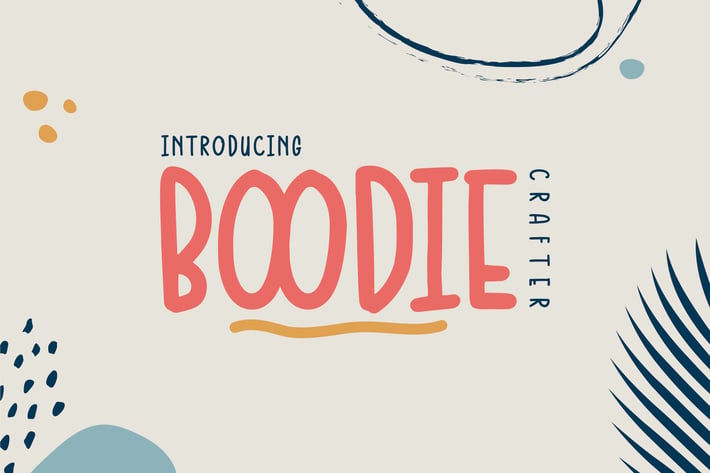
Boodie - Crafter Font
Boodie Crafter is a fresh and vintage styled display font. It has a playful and neat style and it will fit a variety of design ideas. Whether you’re using it for crafting, digital designing, presentations or greeting cards making, it’s perfect!